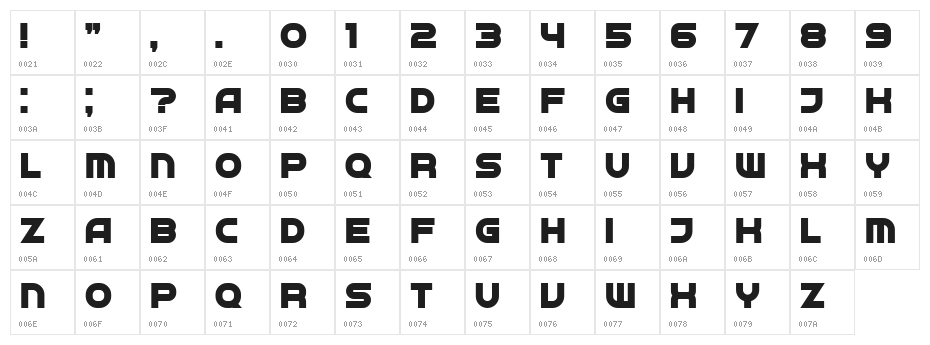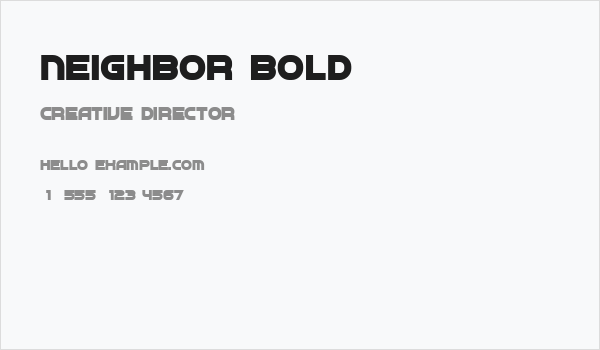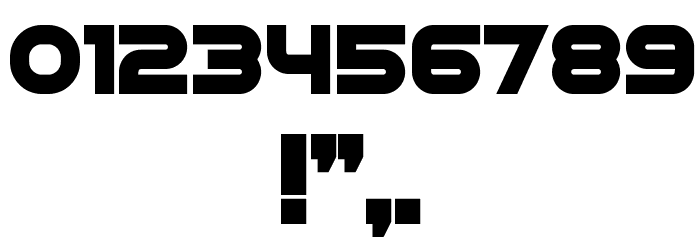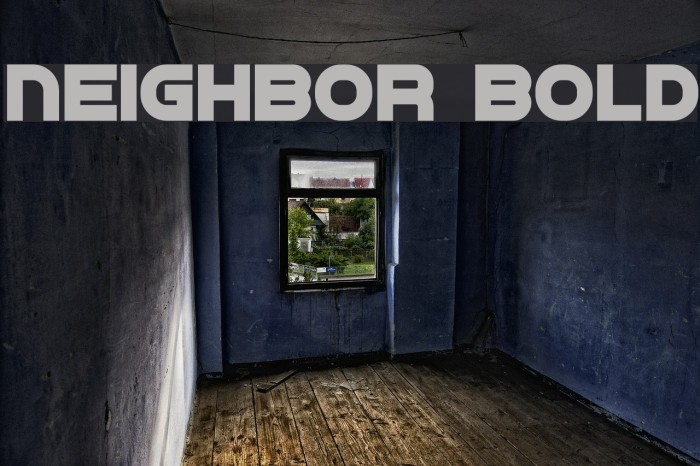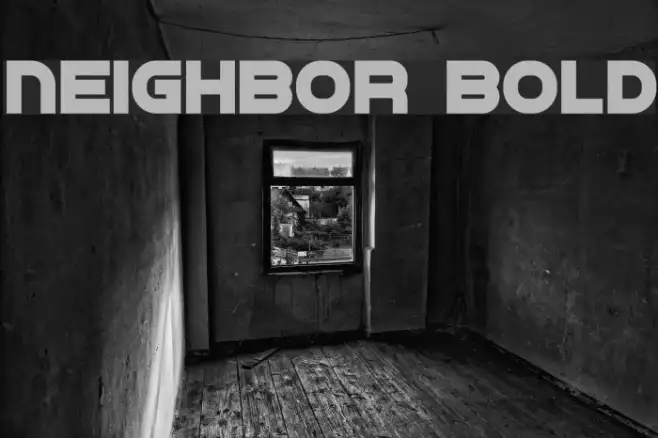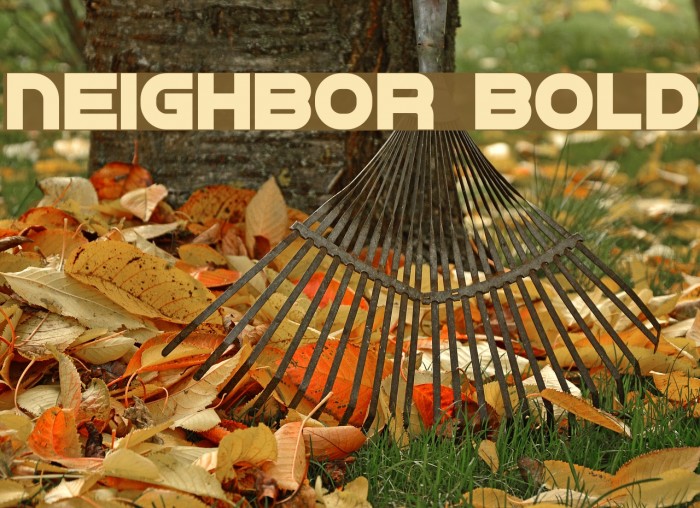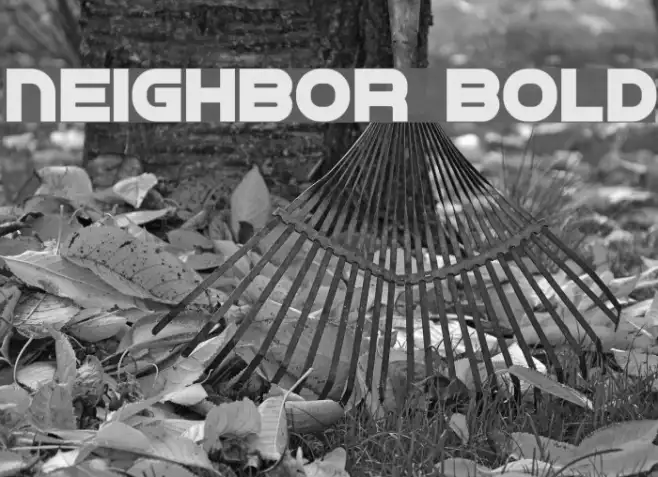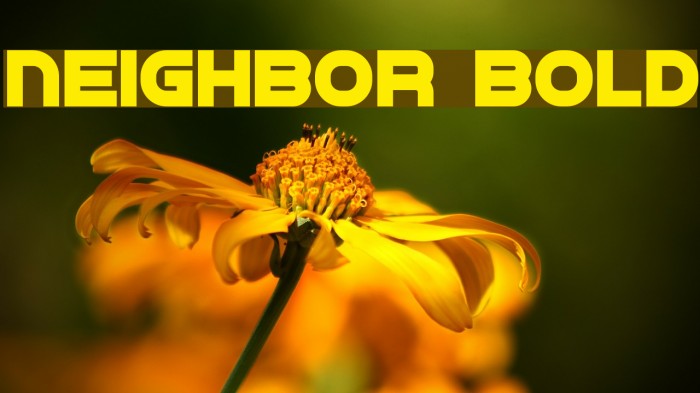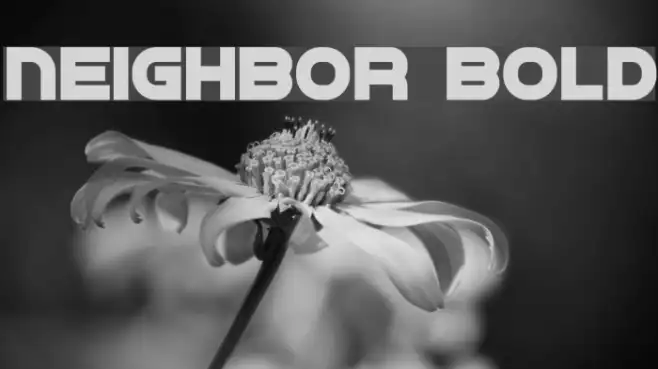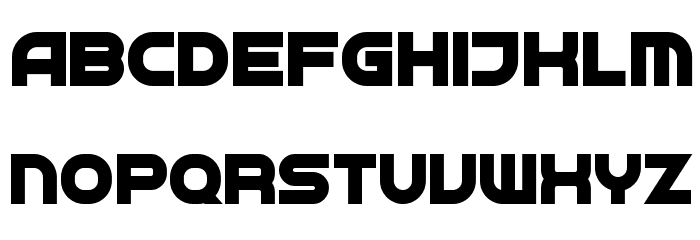
Neighbor Bold Font
Neighbor Bold Description
This bold, geometric typeface features strong, rounded edges and a modern aesthetic. The characters are uniformly thick, creating a cohesive and impactful appearance. The uppercase letters are particularly striking, with a blocky, futuristic style that commands attention. The numerals and special characters maintain this boldness, ensuring consistency across all elements. The font's design is clean and uncluttered, making it suitable for a variety of applications where clarity and emphasis are desired.
| Proposed Projects | Ideal for branding, headlines, posters, and any design requiring a strong visual impact. |